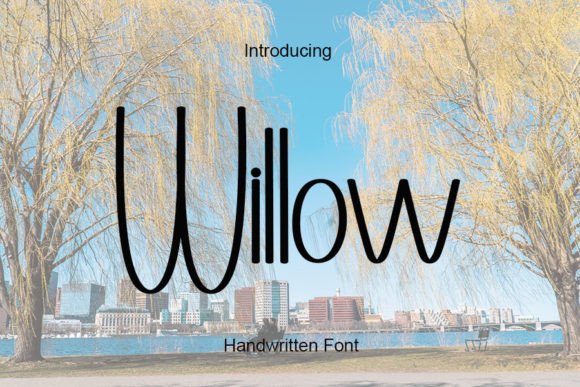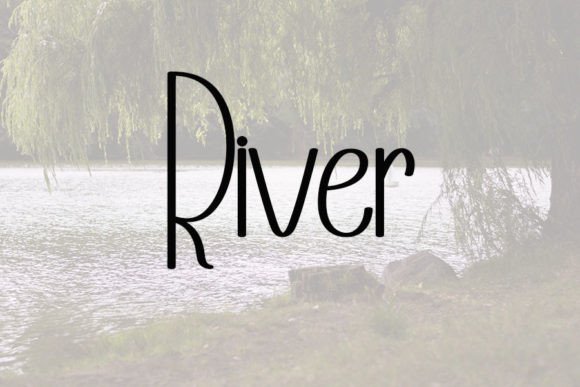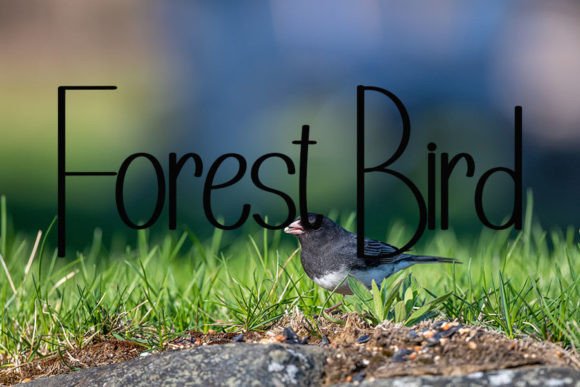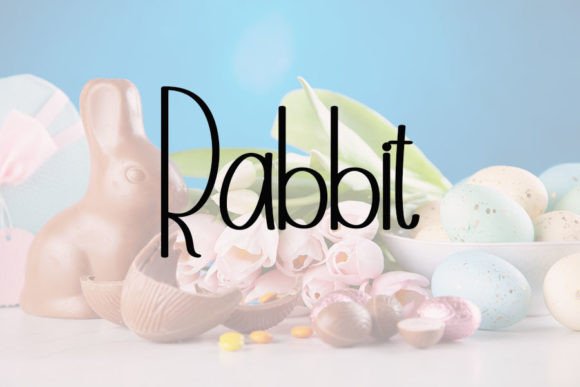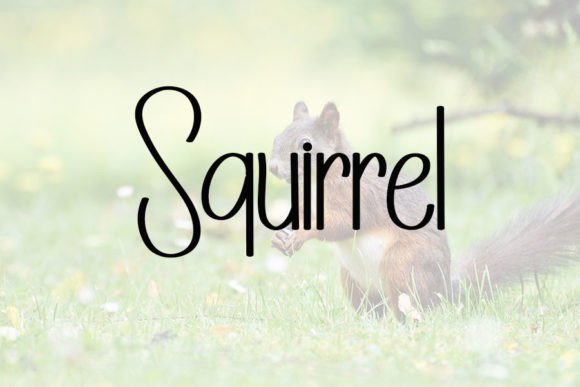
Willow Font
The Willow Font Download is a neat and elegant handwritten typeface created to bring timeless charm to all design projects. With smooth curves and a graceful flow, it is perfect for both professional branding and personal creative use. Whether you’re designing wedding invitations, logos, or posters, Willow adds a distinctive handwritten style that stands out.
Elegant and Versatile Typeface
The Willow script font combines classic handwritten strokes with modern elegance. As a result, it feels refined yet approachable. Furthermore, its clarity ensures it works well in both small stationery designs and large visual displays.
The Willow Font is an excellent choice for wedding invitations, thank-you notes, birthday cards, and seasonal greetings. Because of its romantic handwritten flow, every card feels heartfelt and polished. In addition, it brings warmth and uniqueness to personal stationery.
Branding and Logo Design with Willow Font
Typography communicates brand personality. The Willow handwritten font is perfect for boutique logos, product packaging, and creative branding. Its timeless look inspires trust while still adding elegance, making it especially effective for lifestyle, fashion, and handmade businesses.
Posters, Editorials, and Creative Displays
The Willow Font Download also performs beautifully in posters, book covers, magazines, and banners. Its natural handwritten rhythm creates visual appeal without sacrificing legibility. Consequently, it is a reliable choice for both print and digital media.
Digital Media and Social Content
In today’s creative digital environment, fonts must engage audiences quickly. The Willow typeface integrates seamlessly into Instagram graphics, YouTube thumbnails, Pinterest pins, and blog headers. Because of its elegant handwritten touch, it helps digital content appear stylish and professional.
Why Designers Love Willow Typeface
Designers prefer fonts that balance elegance with usability. The Willow handwritten script offers timeless charm, versatility, and easy readability. Moreover, its modern yet classic look ensures it stays relevant across different creative projects.
Add Timeless Elegance to Your Work Today